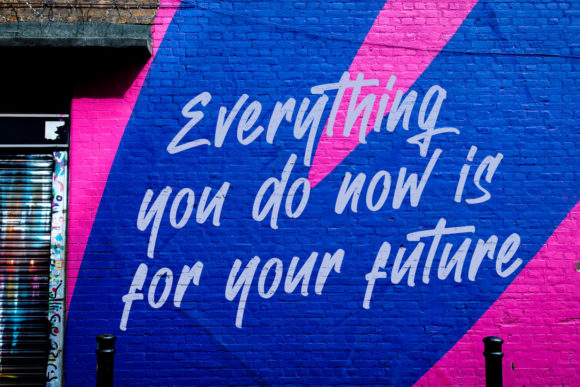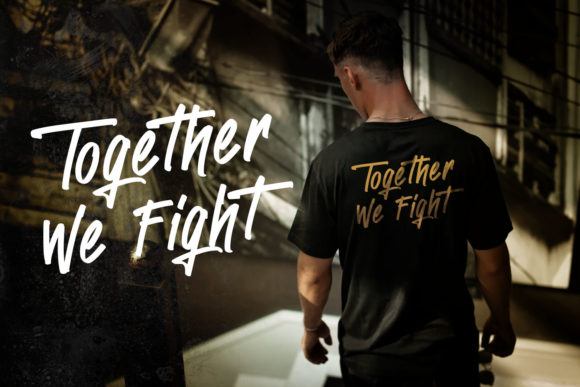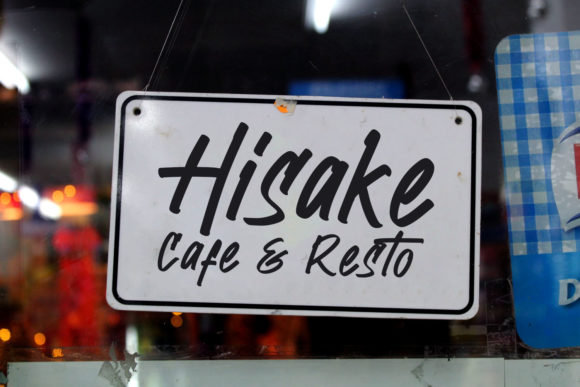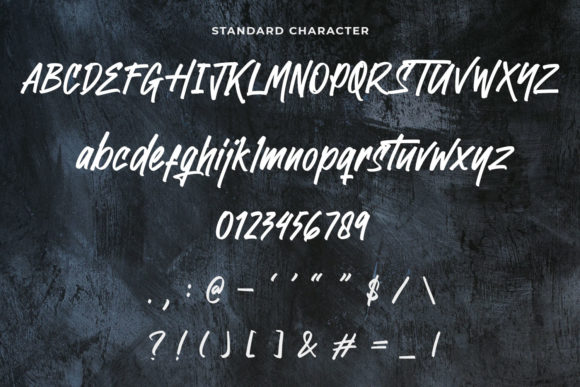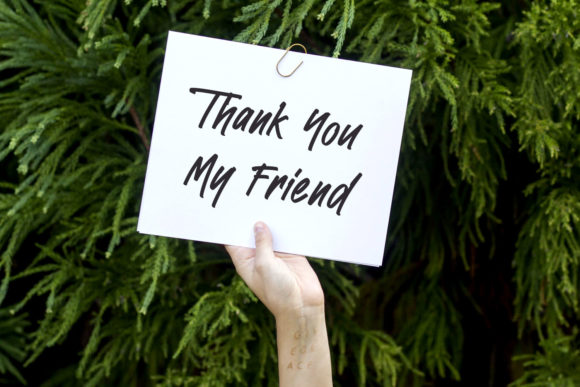
Introduction to Garsimon Marker Font
Have you ever stared at a blank canvas, wondering which font would bring your creative project to life? The right font can make all the difference, elevating your design from ordinary to outstanding. For designers seeking a unique touch, the Garsimon Marker Font is a game-changer.
With its bold, brushed handwriting style, Garsimon Marker Font exudes a classic, yet casual vibe that’s perfect for adding a personal touch to your designs. Whether you’re working on a high-quality brochure, creating a stunning logo, or crafting a visually appealing social media post, this font is a valuable design resource that’s sure to impress.
Key Features of Garsimon Marker Font
- High-quality, bold, and modern design perfect for creative projects that require a unique touch.
- Unique characteristics of the Garsimon Marker Font include its distinctive line work and geometric shapes, adding a touch of sophistication to any design.
- Perfect for use in logos, branding materials, and other creative projects that require a bold and eye-catching font.
Honest Review: Garsimon Marker Font
As a designer, I’m always on the lookout for high-quality design resources that can elevate my creative projects. The Garsimon Marker Font is one such find, and I’m excited to share my thoughts on it.
What works well: ✨ The font’s unique, hand-drawn aesthetic is perfect for adding a touch of personality to your designs. The bold lines and smooth curves make it ideal for creating eye-catching headings and titles. Plus, the transparent background makes it easy to layer and composite with other design elements.
What I like most about the Garsimon Marker Font is its versatility. You can use it for a wide range of creative projects, from branding and advertising to digital products and print materials.
- High quality: The font is well-designed and rendered, with no noticeable glitches or imperfections.
Limitations: ⚠️ While the font is great for headings and titles, it may not be the best choice for body text. The bold lines can be overwhelming when used extensively, and the font may not be as readable in smaller sizes.
Overall, I’m impressed with the Garsimon Marker Font. It’s a valuable addition to any designer’s toolkit, and I’m excited to see how it can be used in future creative projects.
The Garsimon Marker Font is a high-quality design resource that can elevate any creative project. With its unique and stylish aesthetic, it’s perfect for adding a touch of personality to your designs.
To get the most out of the Garsimon Marker Font, experiment with different font sizes, colors, and arrangements to create a unique look that suits your project’s style.
The Garsimon Marker Font is perfect for:
- Designing logos and branding materials
- Creating social media graphics and posts
- Developing educational materials and presentations
Alternatives to Garsimon Marker Font